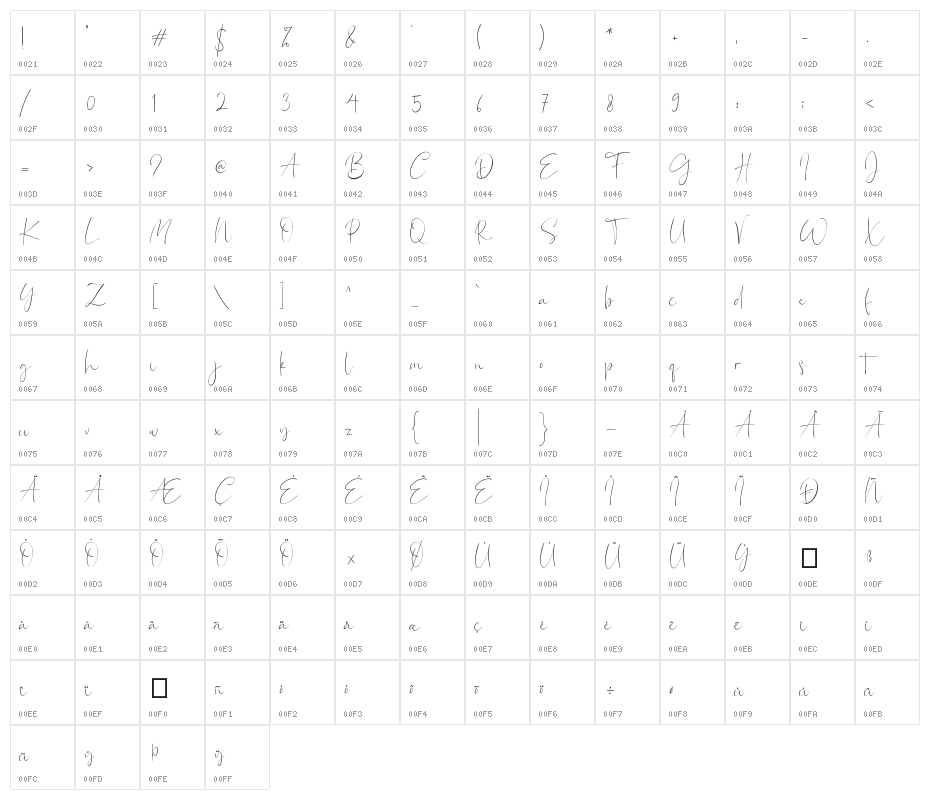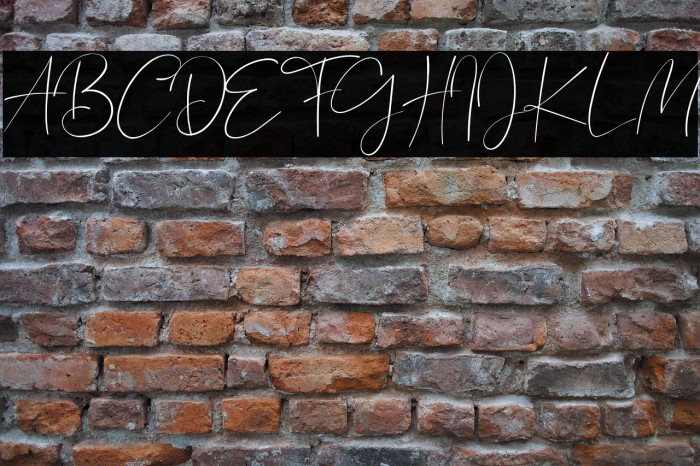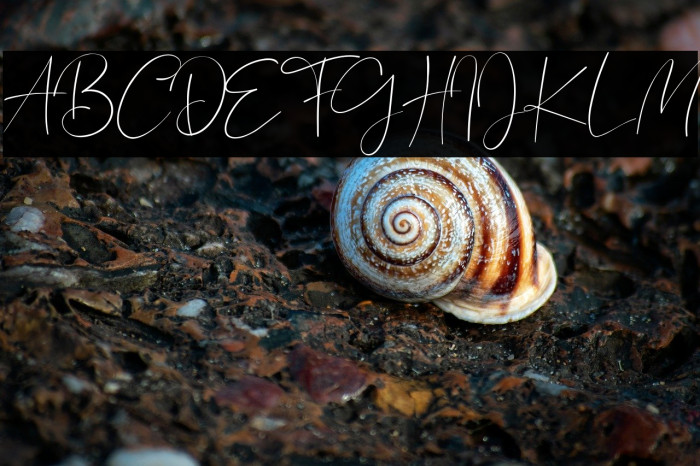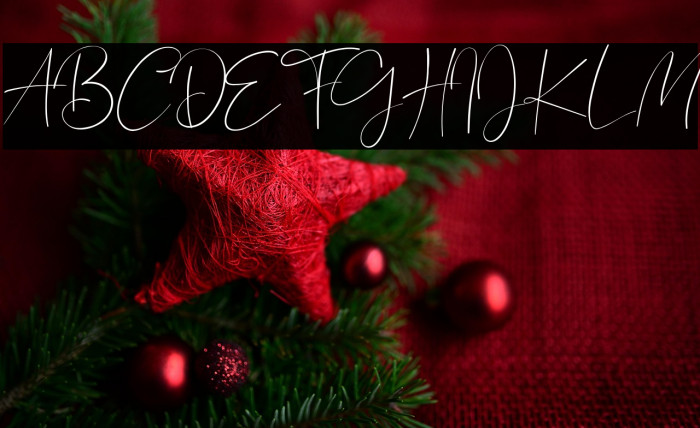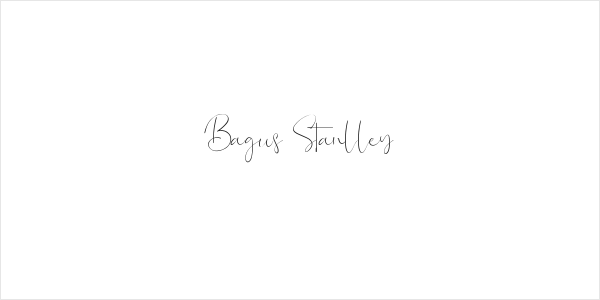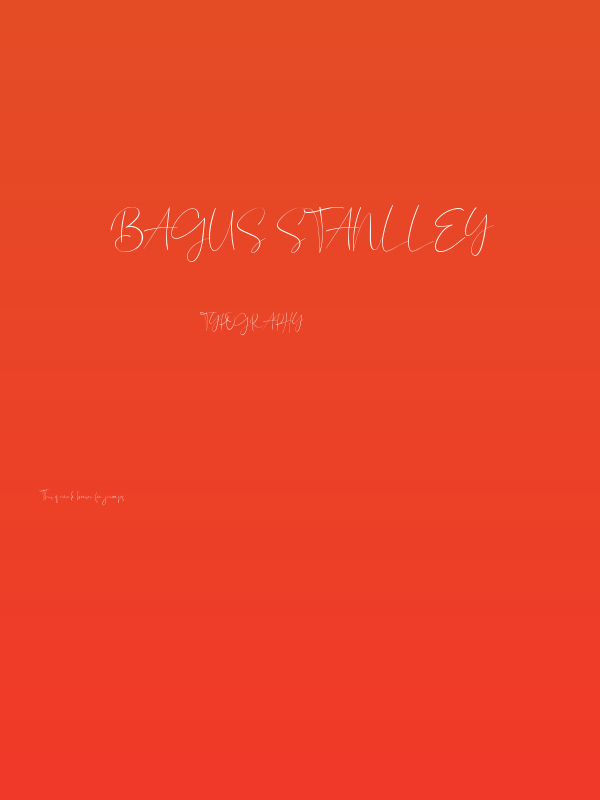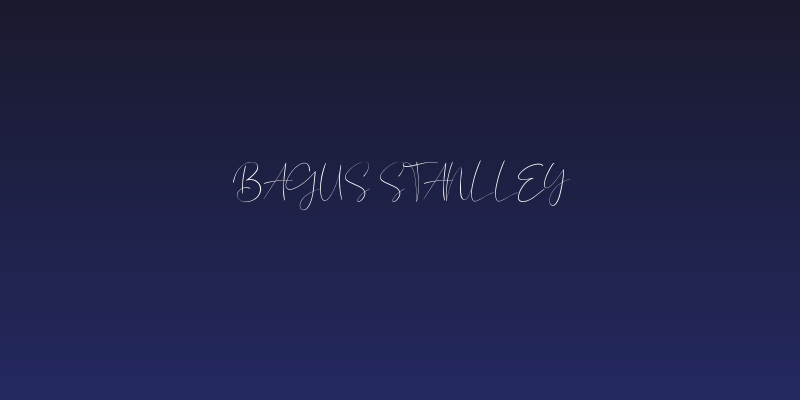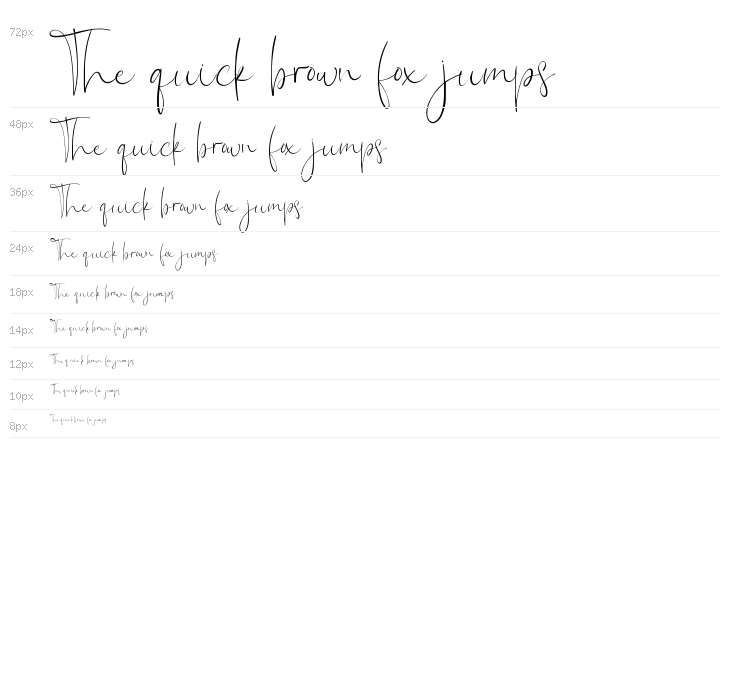
Bagus Stanlley Font
Bagus Stanlley Description
This font features an elegant and flowing script style, characterized by its thin, delicate strokes and graceful curves. The uppercase letters are tall and slightly elongated, giving a sense of sophistication and fluidity. The lowercase letters maintain a consistent flow, with some letters featuring loops and swashes that enhance the overall aesthetic. Numbers and special characters are designed to complement the script style, maintaining the same thin and airy quality. This font exudes a sense of elegance and is perfect for projects that require a touch of class and refinement.
Overall StyleElegant
Use CaseLogos, Invitations, Branding
Proposed ProjectsIdeal for wedding invitations, elegant branding, personal stationery, and high-end product packaging.